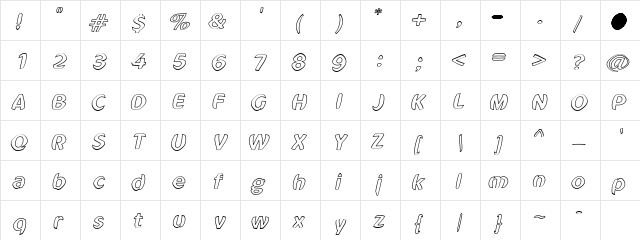
Dross06HollowSlanted Regular
Design Context for Dross06HollowSlanted Typeface
Dross06HollowSlanted offers clean, dependable letterforms without strong stylistic allegiance, making it a practical choice for designers who need flexibility. Its italic angle brings a sense of urgency and motion to the letterforms.
Pro Tip: Use Dross06HollowSlanted for emphasis, pull quotes, and subheadings where its slanted energy can add rhythm to the layout.